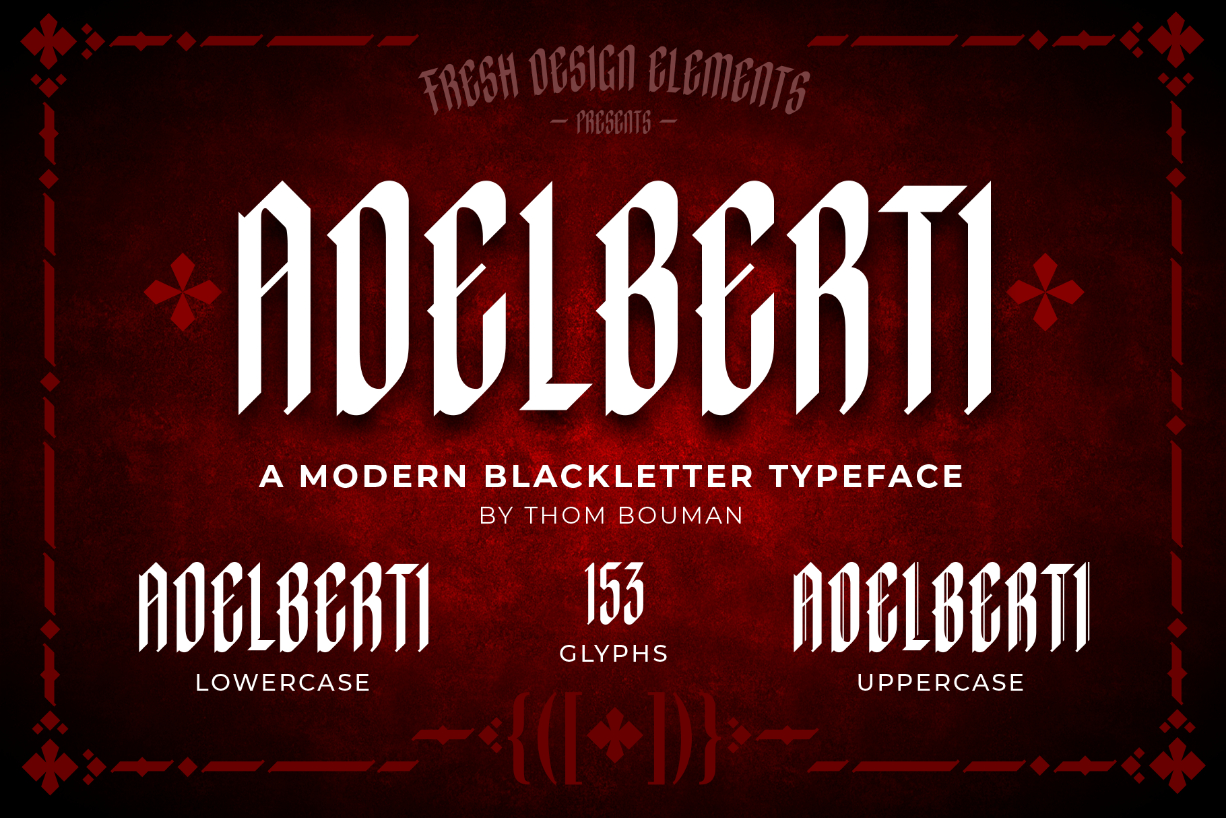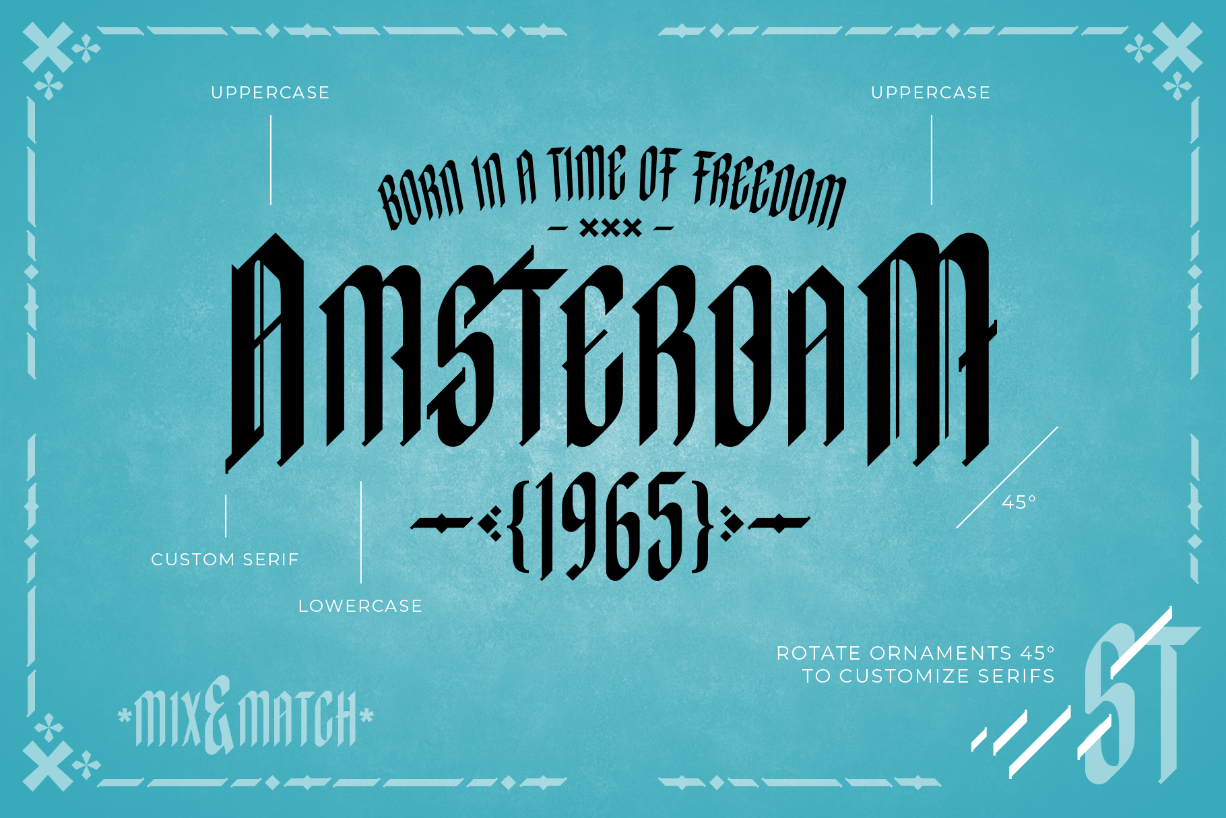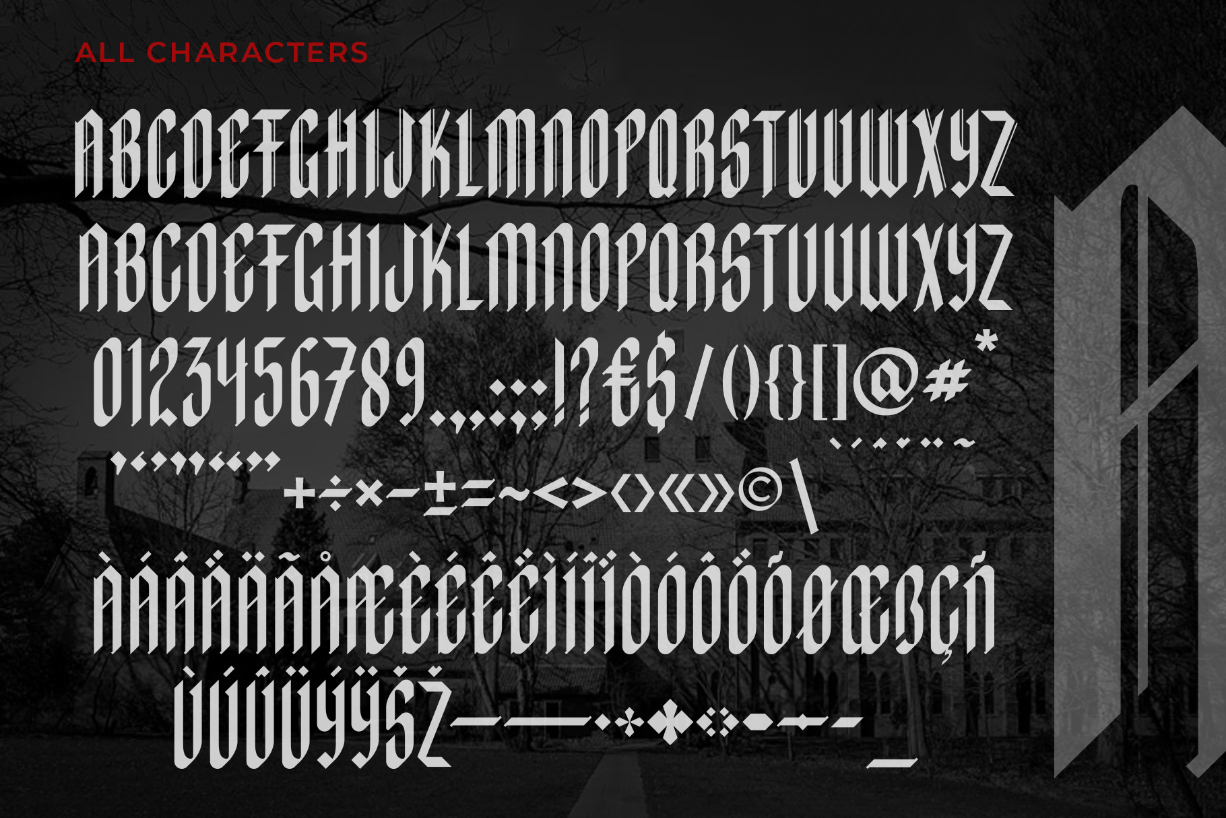
Adelberti Font
About Adelberti Font
Adelberti is a clean and minimal blackletter font with a condensed look. A real modern blackletter!
Mix uppercase and lowercase with alternative glyphs and ornaments to create an interesting look.
Adelberti is suitable for headings, logos, and packaging designs.